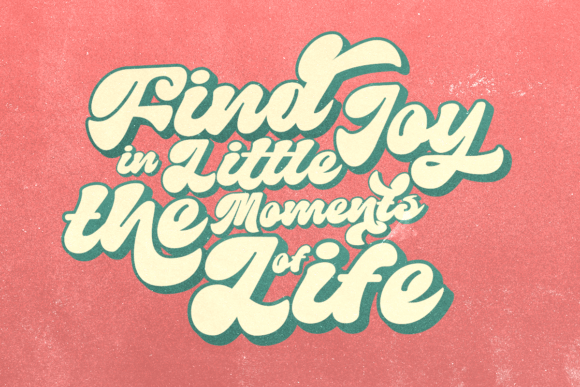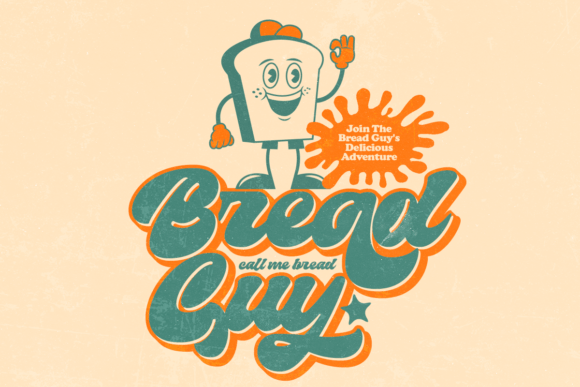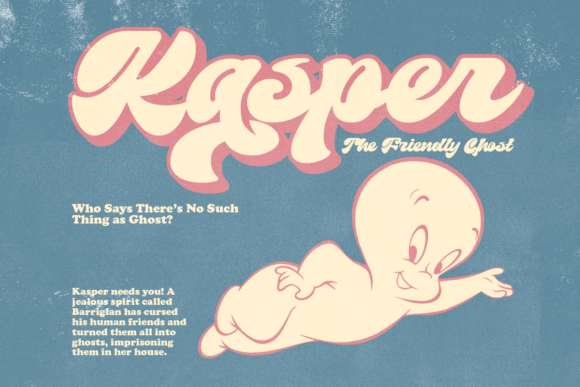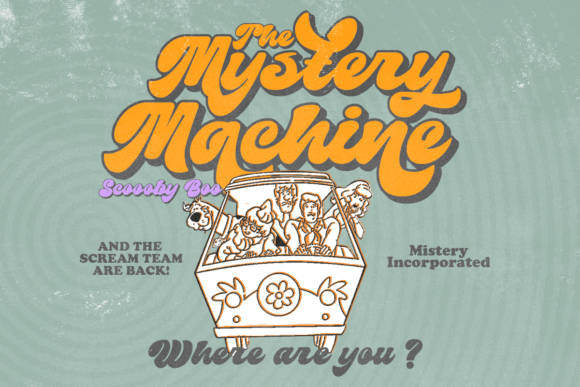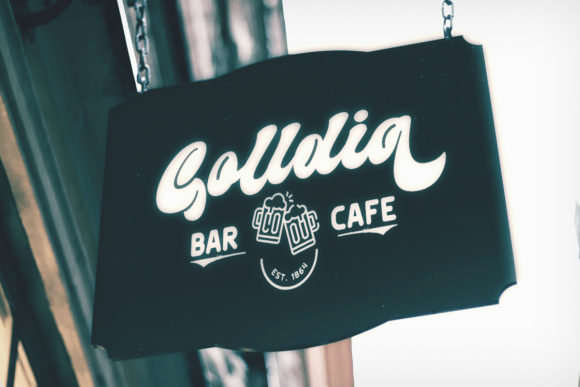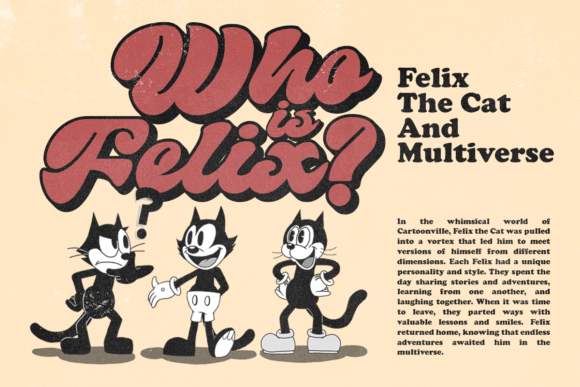
Flicking Back in Time: The Ultimate 60s Revival Font
Have you ever found yourself stuck in a creative rut, longing for a spark of inspiration to breathe new life into your designs? For many of us, it’s the nostalgic charm of a bygone era that sets our imagination ablaze. Perhaps it’s the dreamy quality of a summer sunset or the infectious energy of a 1960s music festival.
Enter the Flicking Font, a retro script font that effortlessly transports your designs to the groovy heyday of the 1960s. With its bold, eye-catching style and Shadow version, Flicking Font is the perfect tool for designers looking to add a touch of vintage flair to their work. Whether you’re crafting logos, invitations, or greeting cards, this versatile font is sure to take your designs on a journey back in time.
- Unique Characteristic: Flicking Font features a unique, hand-drawn design with a distinctive ‘flicking’ motion, giving it a playful and dynamic feel.
Flicking Font Review
I recently had the chance to work with the Flicking Font, and I must say it was an interesting experience. ✨ One of the things that stood out to me was the font’s unique, dynamic feel. The way the letters seem to flicker and move on screen is quite mesmerizing.
Another advantage of the Flicking Font is its versatility. ✨ It can be used for a wide range of applications, from logos and branding to body text and even animations. The font’s flexibility makes it a great choice for designers looking to add some visual interest to their projects.
However, there are some limitations to consider. ⚠️ For one, the font can be quite overwhelming in large quantities. If used extensively, it may start to feel like too much, and the flickering effect can become distracting. Additionally, the font may not be the best choice for applications where readability is crucial, such as in small text or for users with visual impairments.
Overall, I would say that the Flicking Font is a solid choice for designers looking to add some visual flair to their projects. While it may not be suitable for every application, it can be a great tool in the right context.
- ✨ Unique, dynamic feel that can add visual interest to projects
- ✨ Versatile and can be used for a wide range of applications
- ⚠️ May be overwhelming in large quantities
- ⚠️ Not suitable for applications where readability is crucial